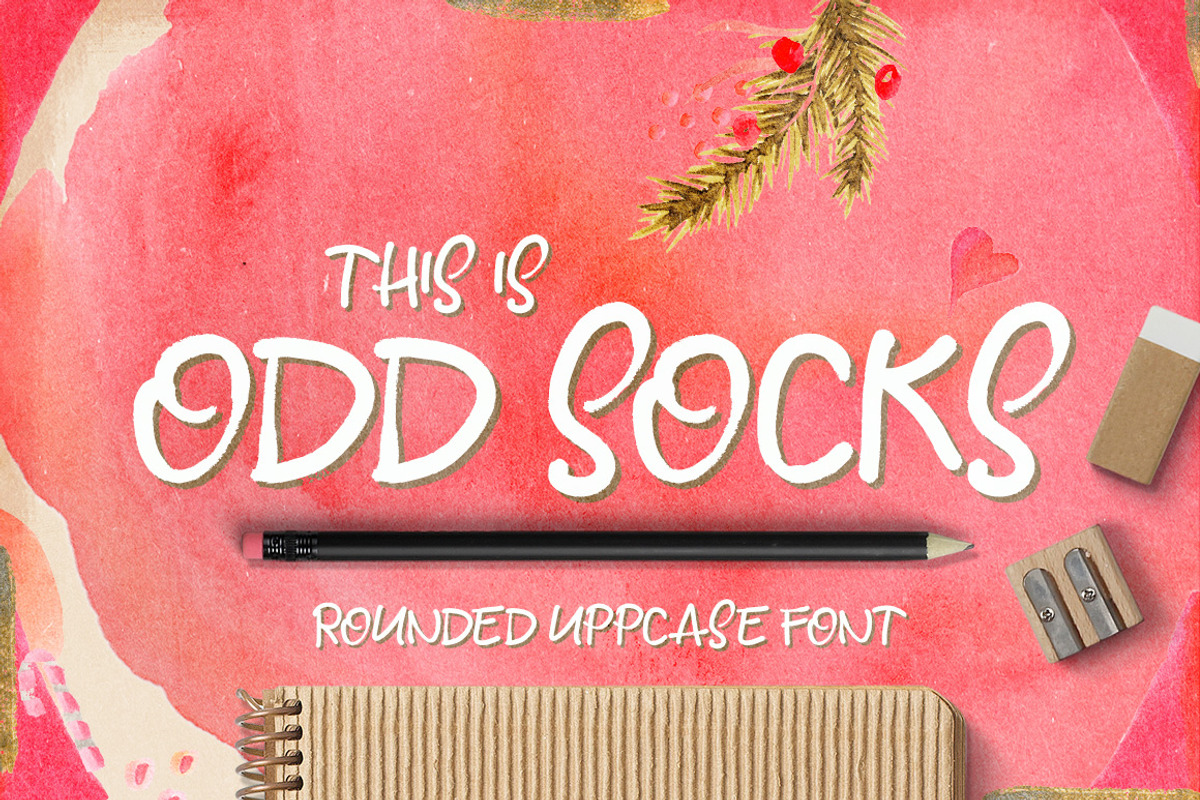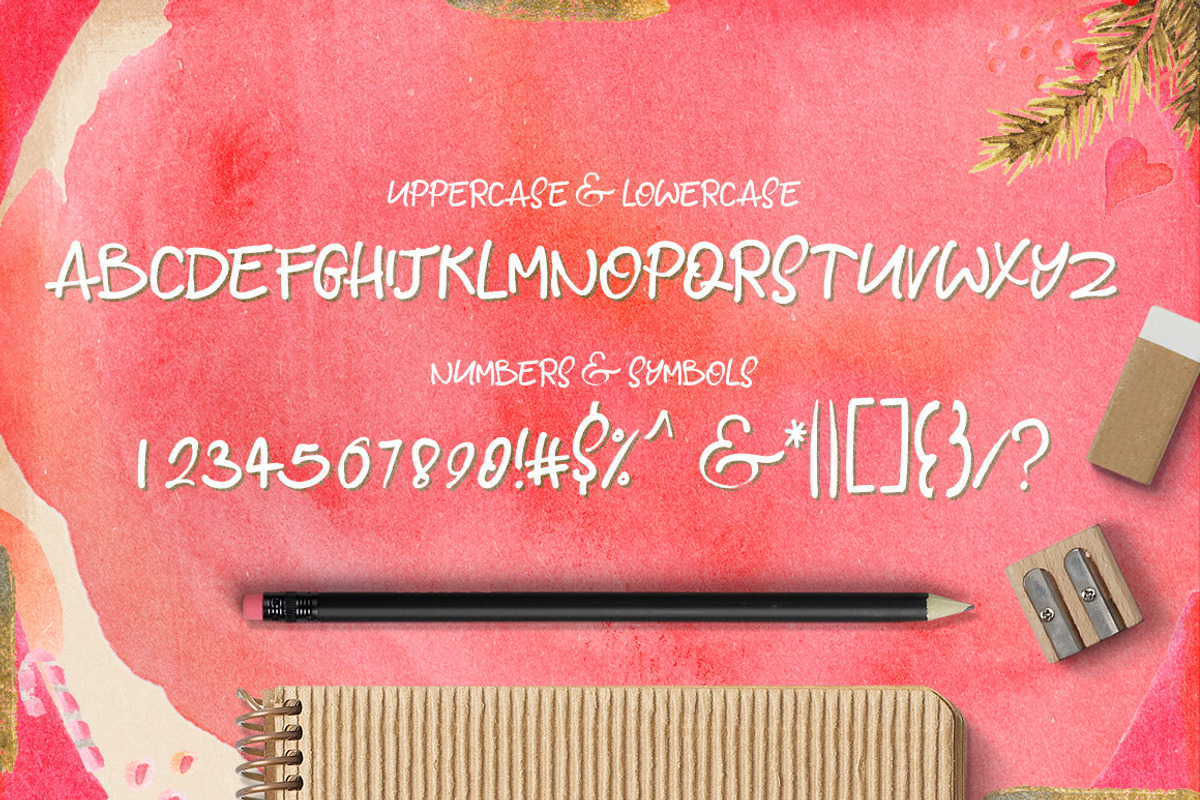
Odd Socks Font
This is Odd Socks. A Hand Drawn All Caps Font. This font is part of the Gobsmacking Font Bundle here
Odd Socks Font by Creativeqube Design fits naturally into Branding, posters, packaging, typography.